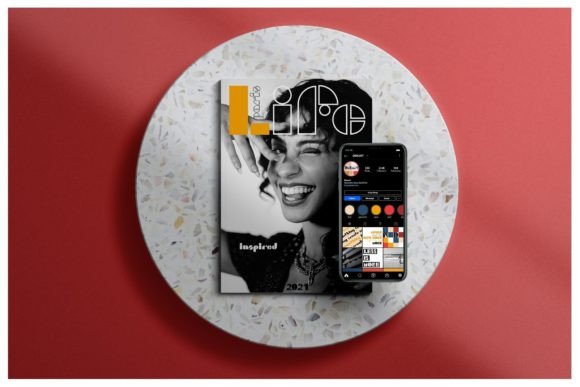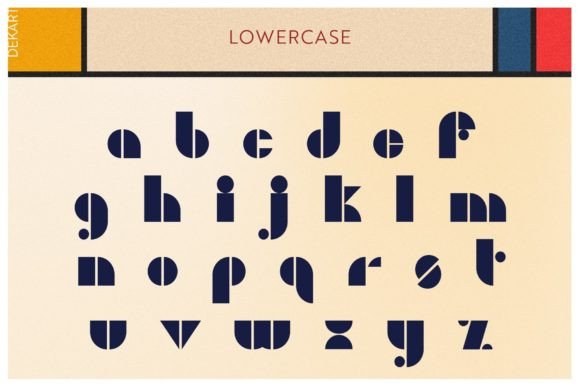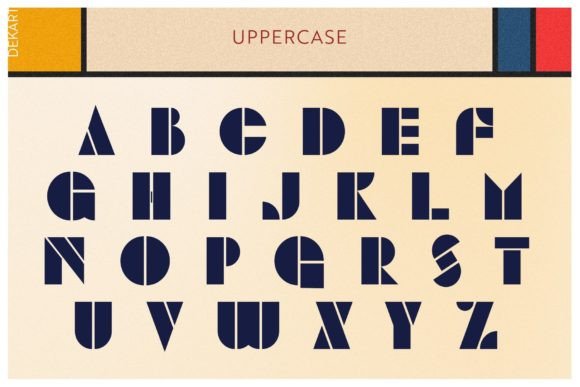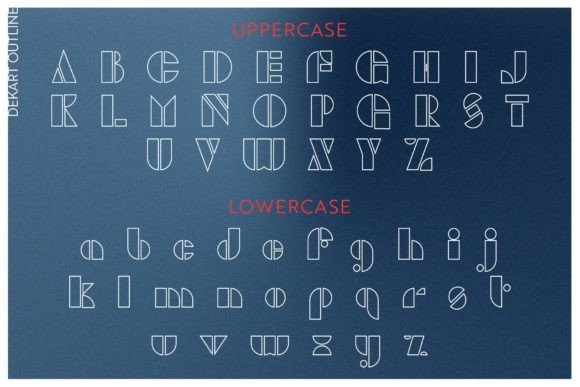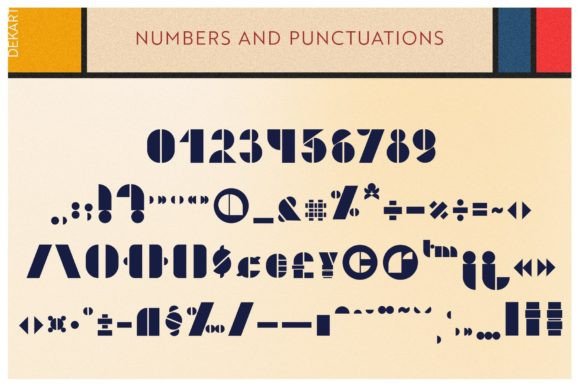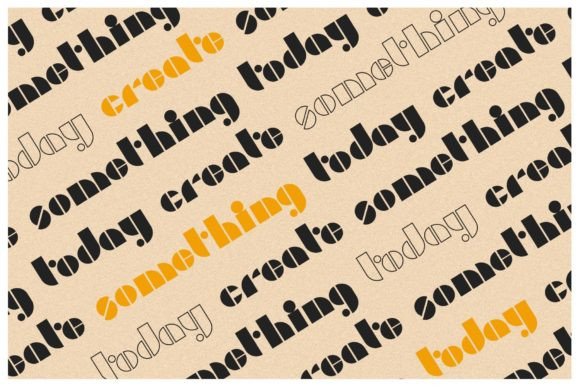
The Perfect Blend of Modernity and Retro Chic: Introducing Dekart Font
Have you ever stared at a blank canvas, unsure of where to begin, only to be inspired by the simplest of shapes? For designers, this is a familiar feeling – the spark that ignites a new project. For us, it was the geometric forms that sparked the creation of Dekart Font, a stunning new display sans serif font that combines the elegance of Art Deco and Bauhaus styles with the clarity of modern design.
Designed to be versatile and adaptable, Dekart Font is perfect for a wide range of design applications, from social media and visual content to web and UI design, posters, and even wedding invitations. Its PUA-encoded glyphs and swashes make it easy to access and use, allowing designers to unleash their creativity and bring their visions to life.
- Unique Characteristic: Dekart Font features a unique, elegant design that is both modern and classic, making it suitable for a wide range of applications, from business reports to creative projects.
Dekart Font Review
Overall, I was excited to dive into the Dekart Font, but my experience was a mixed bag. Let’s break down what works well and what doesn’t.
- The Dekart Font has a clean and modern aesthetic that would work well in a variety of digital applications.
- The font is highly customizable, with a range of options for adjusting size, color, and style.
- The font is also highly legible, making it a great choice for reading-heavy applications like e-books and articles.
- The Dekart Font feels somewhat generic, lacking a unique personality or character that sets it apart from other fonts.
- The font’s customization options can be overwhelming, making it difficult to achieve a cohesive look.
- The font is not optimized for use in print, which may be a limitation for designers working on physical materials.
While the Dekart Font has its strengths, it ultimately feels like a safe, unremarkable choice. It gets the job done, but it doesn’t particularly stand out or inspire creativity. If you’re looking for a versatile, easy-to-use font, Dekart might be a good option. But if you’re looking for something with more personality or flair, you may want to look elsewhere.